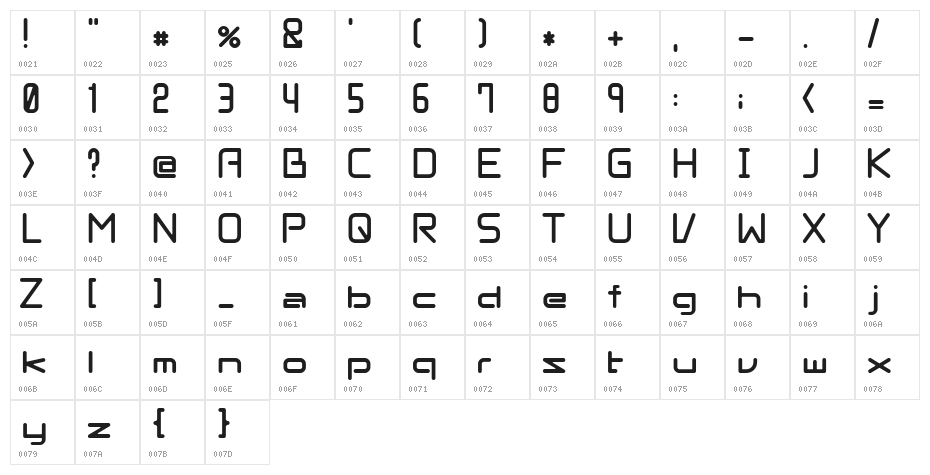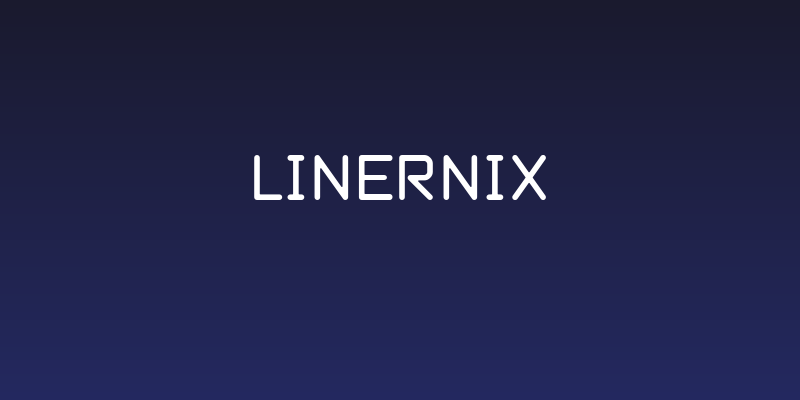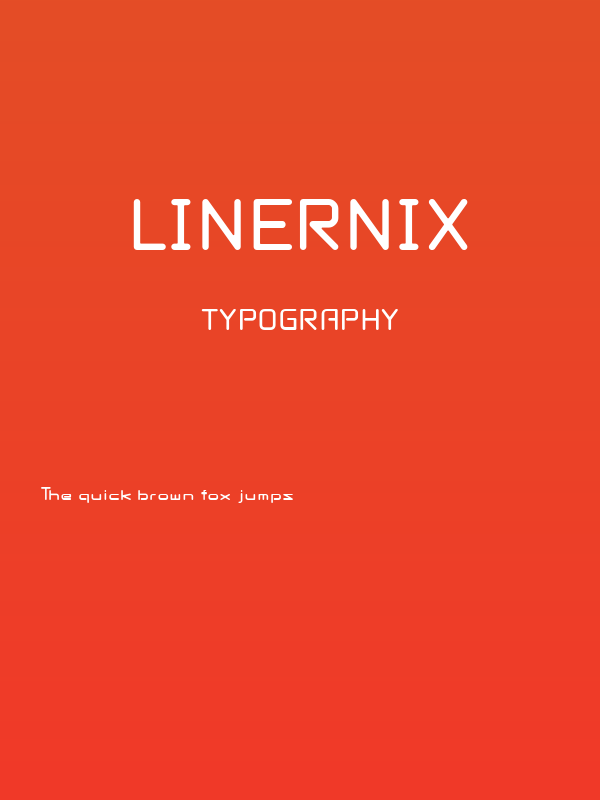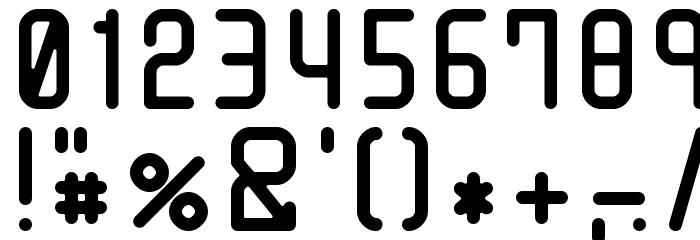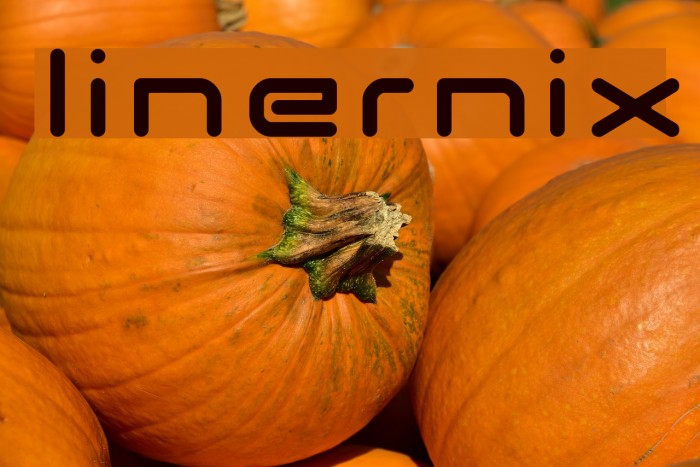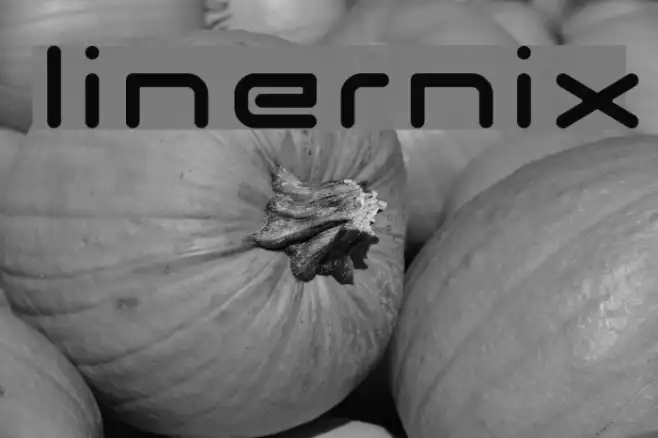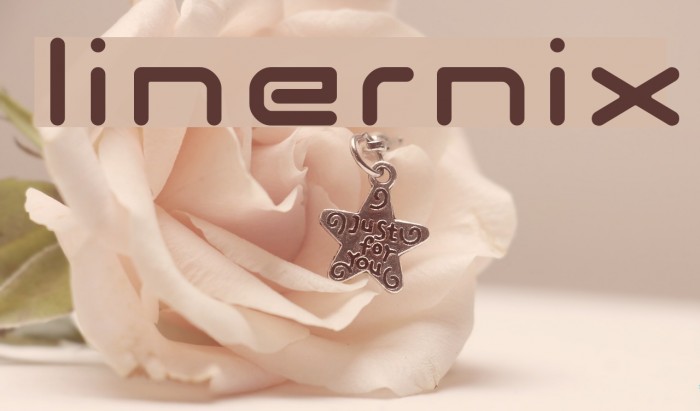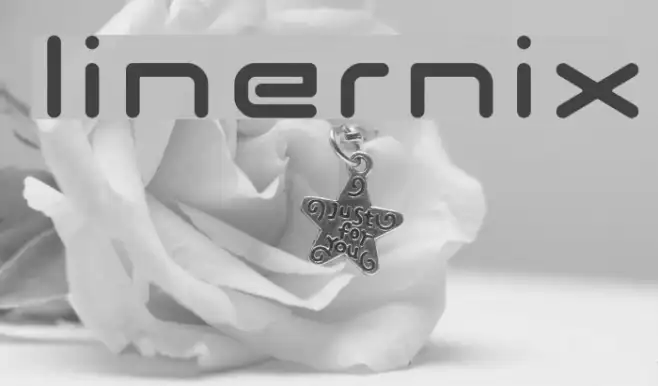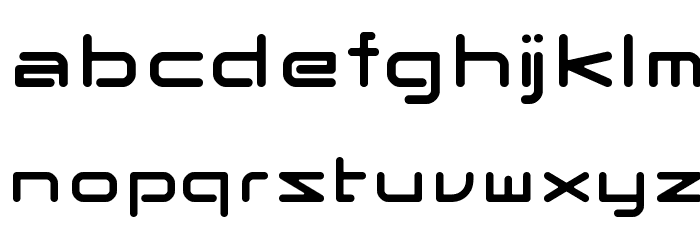
linernix Font
linernix Description
This font features a modern, geometric design with clean, rounded edges and a monospaced appearance. The characters are uniformly structured, giving a sense of balance and symmetry. The uppercase letters are bold and prominent, while the lowercase letters maintain a consistent height and width, enhancing readability. The numerals and special characters follow the same design principles, ensuring a cohesive look across all elements. The overall style is minimalistic and futuristic, making it suitable for digital interfaces and contemporary design projects.
| Use Case | Logos, Digital interfaces, Tech branding |
| Proposed Projects | Ideal for digital interfaces, tech branding, modern posters, and minimalist design projects. |